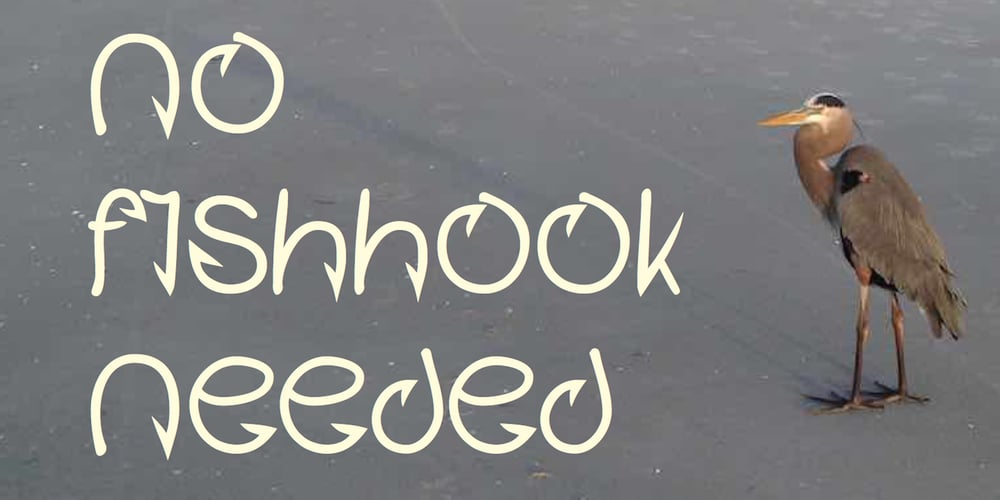
Fishhook
Fishhook font
Fishhook Font Family was designed by Robert Schenk and published by Ingrimayne Type. Fishhook contains 2 styles and family package options. Fishhook is a letterbat font that makes letters from fishhooks and barbs. In the plain version the fishhooks look more realistic, but the bold version may be more satisfying from a typographical perspective.